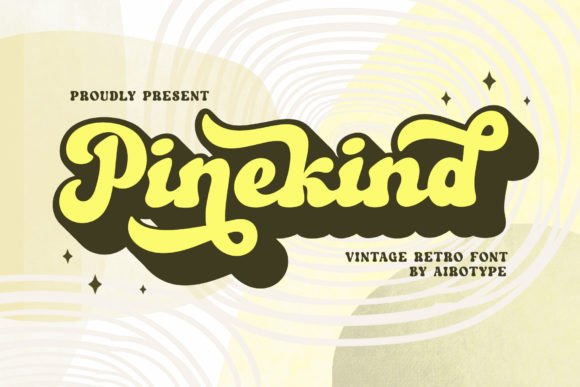
Welcome to the world of Pinekind Font! A font family designed with an exquisite vintage feel, perfect for all your creative endeavors. If you're looking for a retro script font with a groovy vibe, then Pinekind is the font for you. Created by airotype, this cool, edgy display font is PUA encoded, which means you can easily access all the glyphs and ligatures.
Are you searching for a font for your wedding backdrop or any other special event? Pinekind is the perfect choice for you! With its unique and captivating style, it will make your project stand out. The retro feel of this font is sure to take your audience on a journey back in time.
But Pinekind is not just limited to wedding backdrops. It's a versatile font that can be used for a wide range of projects, including logos, packaging, branding, posters, social media, and more. This display font will elevate your designs and make them look professional and eye-catching.
Imagine the possibilities with Pinekind. You can create stunning and engaging designs that will grab the attention of your audience. Its vintage and groovy vibe will appeal to anyone looking for a font that's different from the norm.
In conclusion, Pinekind Font is the perfect addition to your font collection. Its unique retro style and PUA encoding make it easy to use and versatile. Whether you're designing a wedding backdrop or creating a logo, Pinekind will elevate your project and make it stand out. So, why wait? Download Pinekind Font today and start creating!